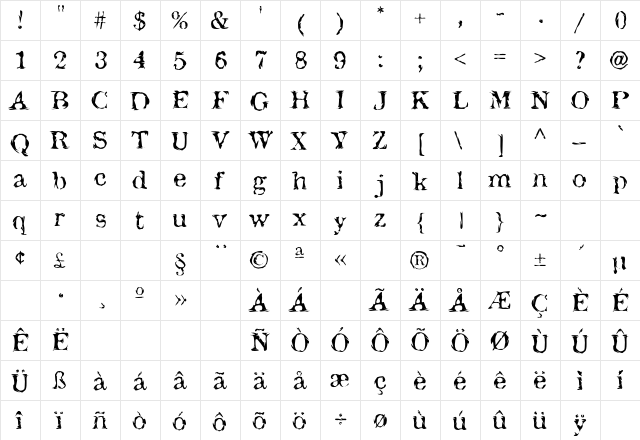
Jack the Hipper Regular
Design Context for Jack the Hipper Typeface
Jack the Hipper is a composed and adaptable typeface that performs quietly and consistently across a wide range of design contexts.
Pro Tip: Use Jack the Hipper in both headline and body roles to test its range before committing to a single application.